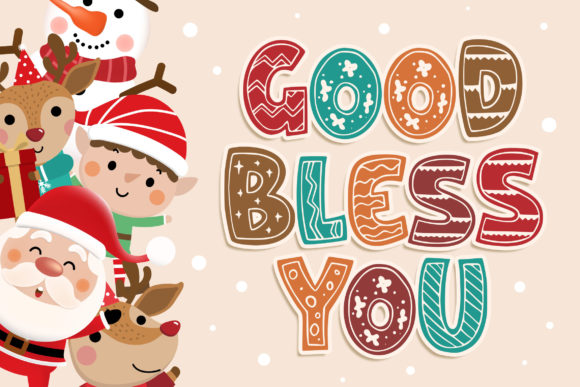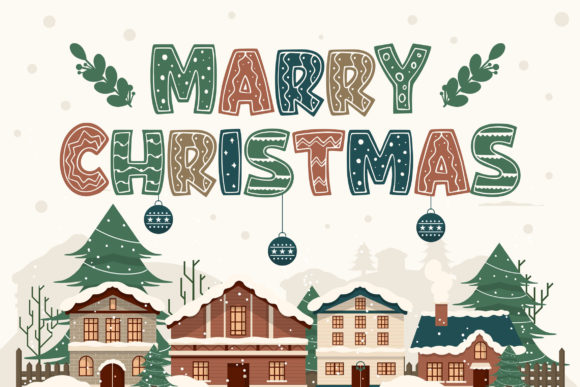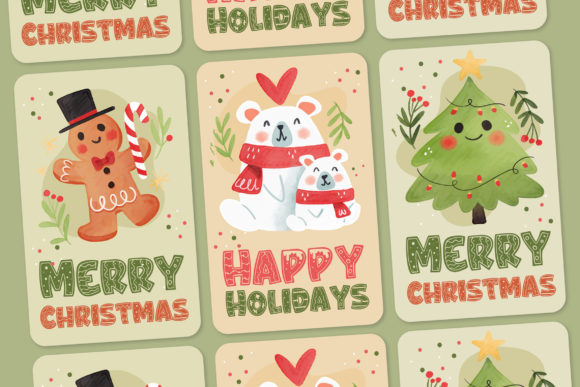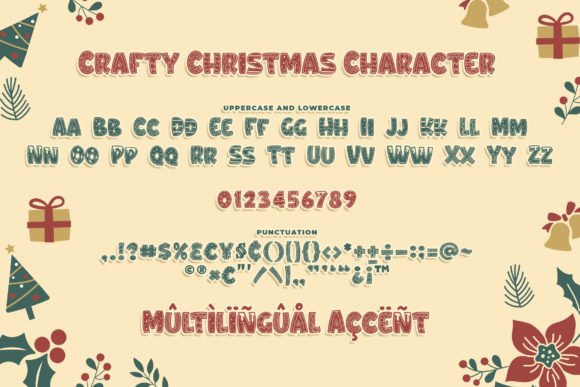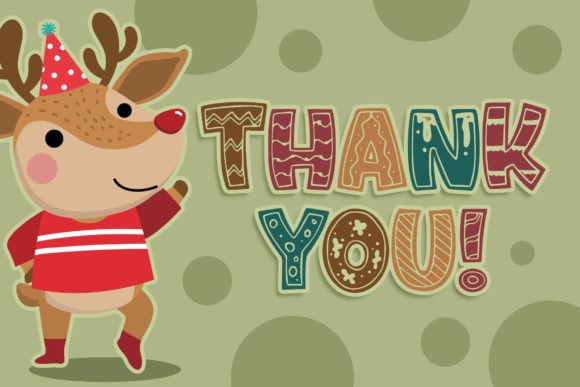
Crafty Christmas Font: The Ultimate Festive Font for Designers and Crafters
Are you looking for a font that captures the essence of Christmas and adds a touch of festivity to your designs? Look no further than the Crafty Christmas Font! This fun, festive, and highly detailed decorative font is perfect for designers, crafters, and anyone looking to add some holiday cheer to their projects.
What Makes Crafty Christmas Font So Special?
Crafty Christmas Font is a unique and versatile font that can be used for a variety of projects, from crafts and digital design to presentations and greeting cards. Its intricate details and festive flair make it the perfect addition to any Christmas-themed project. Whether you’re creating holiday cards, gift tags, or festive decorations, this font is sure to become your go-to choice.
Features of Crafty Christmas Font
- Highly Detailed Design: Crafty Christmas Font features intricate details and ornate designs that will add a touch of elegance and sophistication to your projects.
- Festive Flair: This font is designed to capture the spirit of Christmas, with festive elements like snowflakes, holly, and bells.
- Versatile: Crafty Christmas Font can be used for a variety of projects, from digital design to crafts and presentations.
Uses for Crafty Christmas Font
Crafty Christmas Font is perfect for a variety of projects, including:
- Holiday Cards and Gift Tags: Add a personal touch to your holiday cards and gift tags with this festive font.
- Digital Design: Use Crafty Christmas Font to create festive digital graphics, social media posts, and blog headers.
- Presentations: Add some holiday cheer to your presentations with this fun and festive font.
- Crafts: Use Crafty Christmas Font to create festive decorations, garlands, and other holiday crafts.
Why Designers and Crafters Love Crafty Christmas Font
Designers and crafters love Crafty Christmas Font for its unique and festive design. Here are just a few reasons why:
- Unique Design: Crafty Christmas Font features a unique and highly detailed design that will set your projects apart from the rest.
- Time-Saving: This font is easy to use and saves time, making it perfect for designers and crafters with tight deadlines.
- Versatility: Crafty Christmas Font can be used for a variety of projects, making it a great addition to any design or crafting toolkit.
Tips for Using Crafty Christmas Font
Here are a few tips for using Crafty Christmas Font:
- Use it Sparingly: While Crafty Christmas Font is festive and fun, it can be overwhelming if used too much. Use it sparingly to add a touch of festivity to your projects.
- Pair it with Other Fonts: Pair Crafty Christmas Font with other fonts to create a unique and interesting design.
- Experiment with Colors: Experiment with different colors to find the perfect combination for your project.